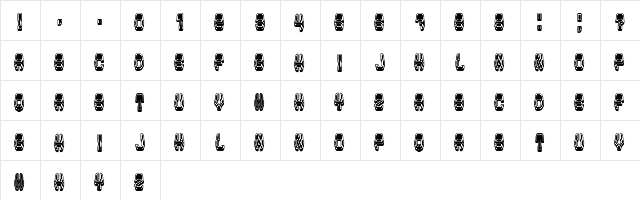
Modish Filled Regular Font Preview
Modish Filled Regular
Design Context for Modish Filled Typeface
Modish Filled is a composed and adaptable typeface that performs quietly and consistently across a wide range of design contexts.